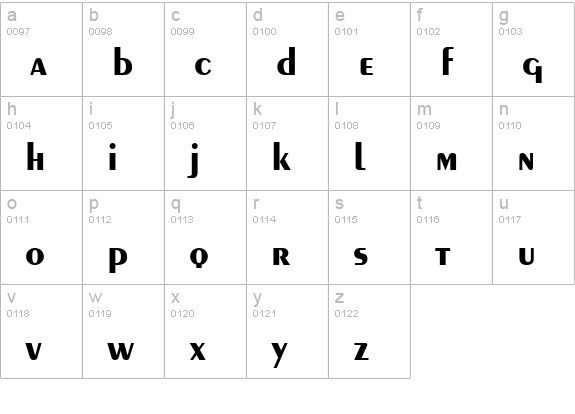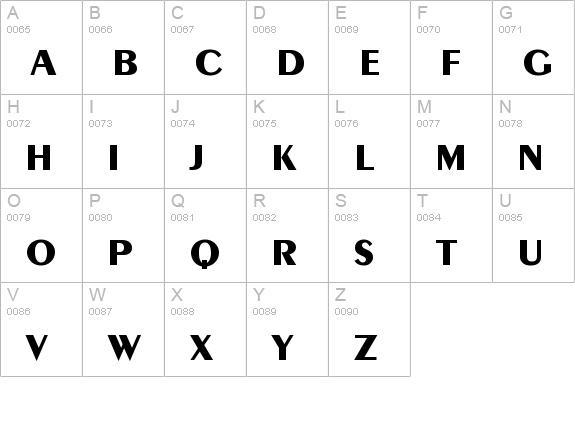
TR Penguin Bold Font Details
TR Penguin Bold is a strong, high-contrast variant in the TR typeface family \xE2\x80\x94 well suited to headlines, attention-grabbing titles, and strong calls-to-action.
TR Penguin Bold font is a modern and stylish typeface that exudes confidence and strength. With its bold and impactful design, this font is perfect for making a statement in any project. The sharp edges and clean lines give it a professional and sophisticated look, making it ideal for headlines, titles, and branding materials. The best part is that TR Penguin Bold font is available for free download at FontsMarket.com. Whether you're a designer working on a new project or just looking to add a fresh touch to your designs, this font is a fantastic choice. Don't miss out on the opportunity to enhance your work with this versatile and eye-catching font. Download TR Penguin Bold today and take your designs to the next level!